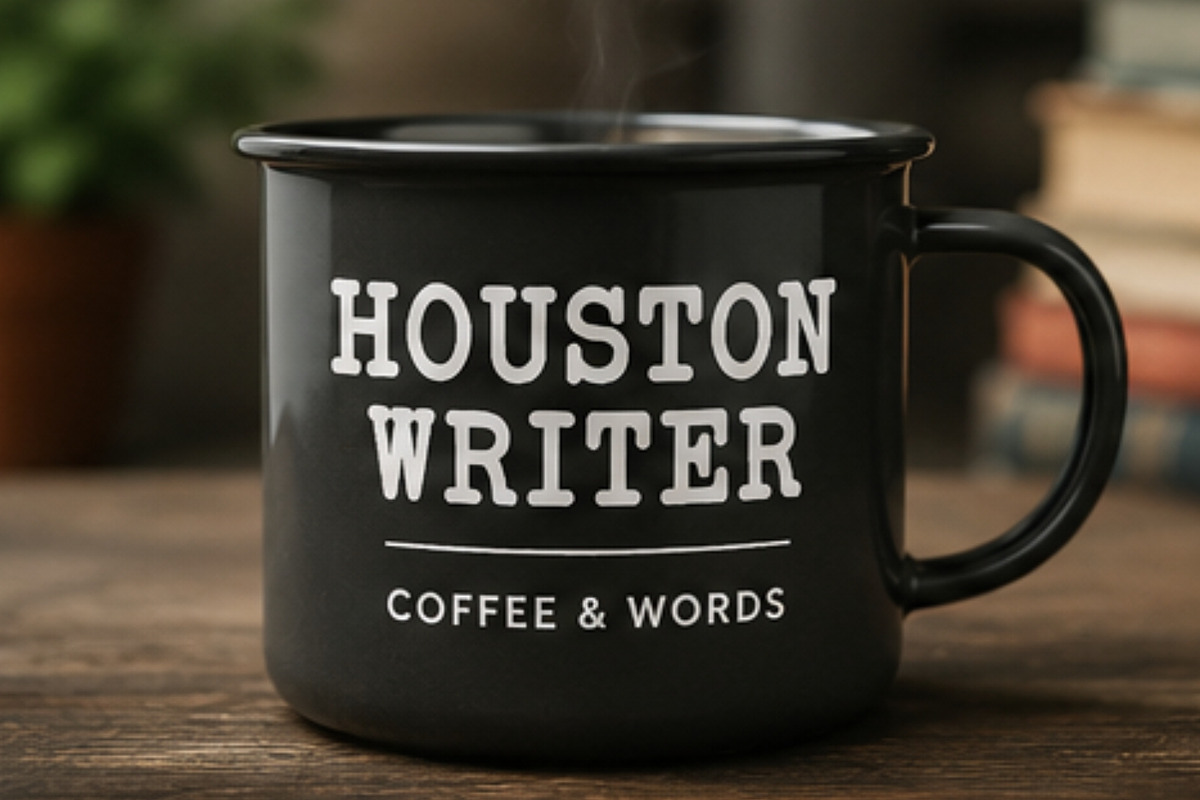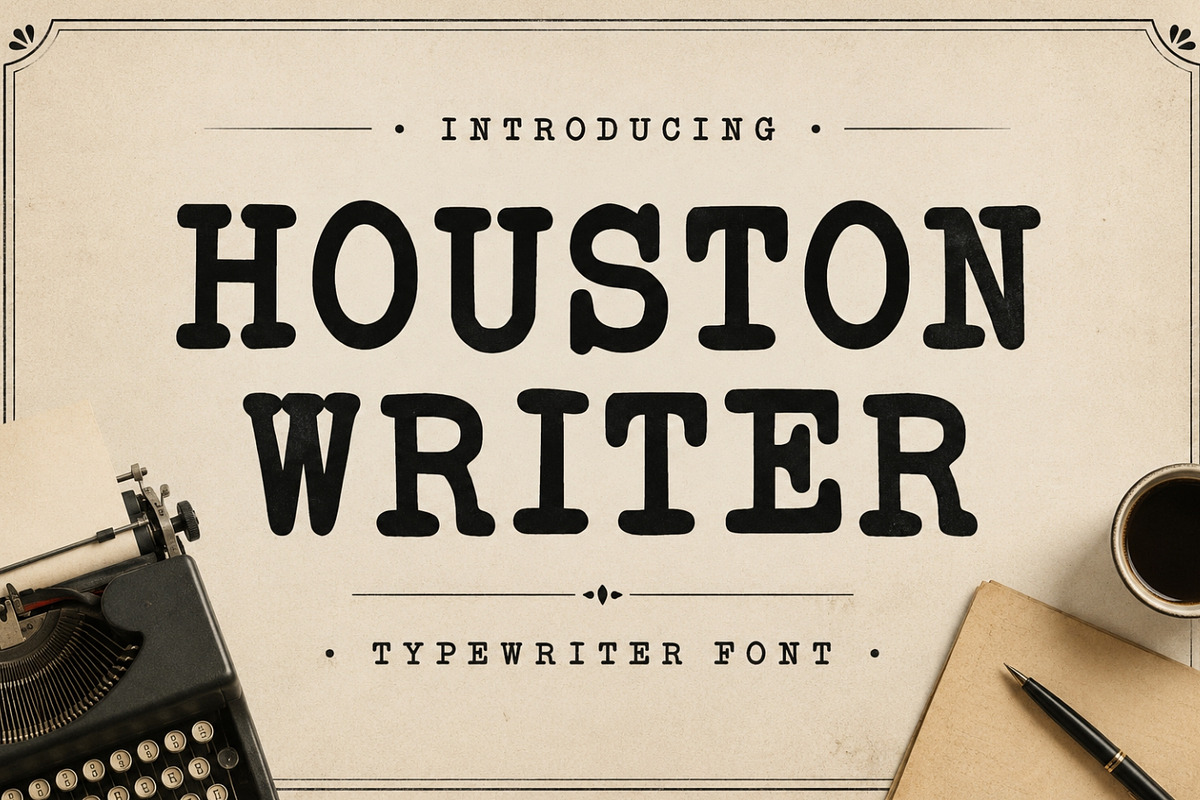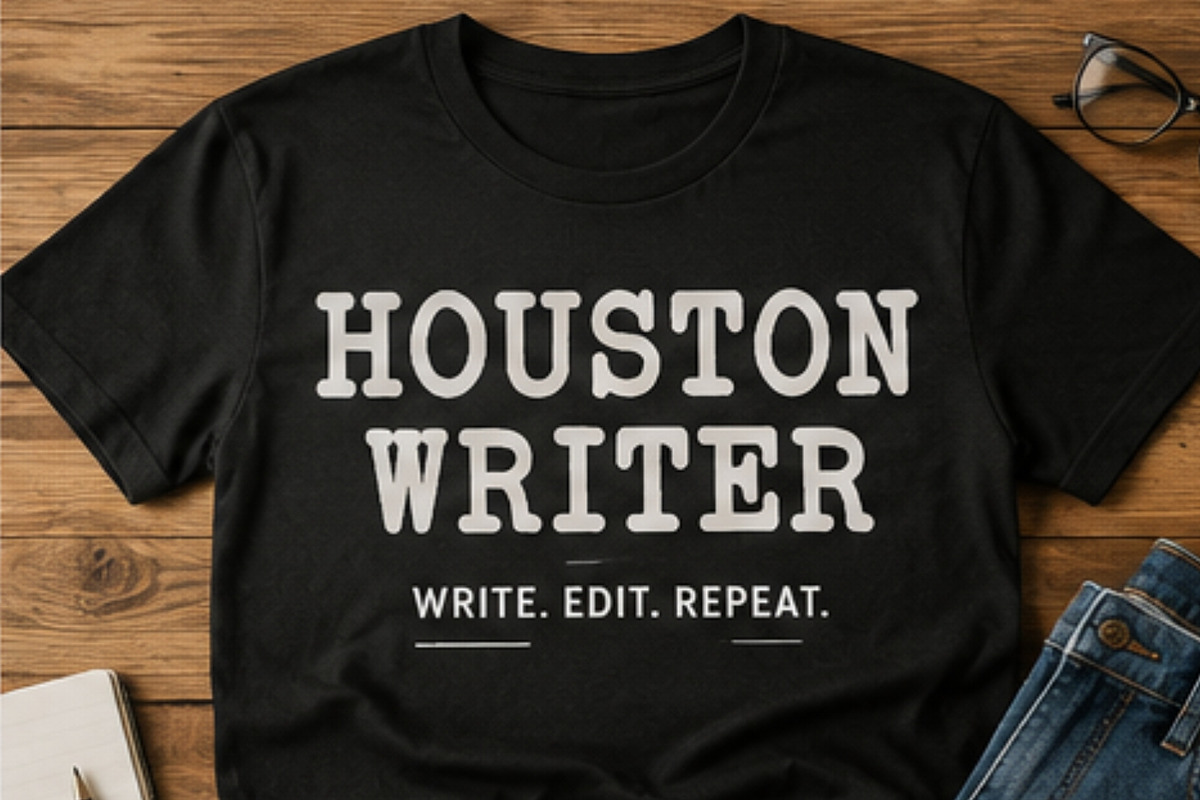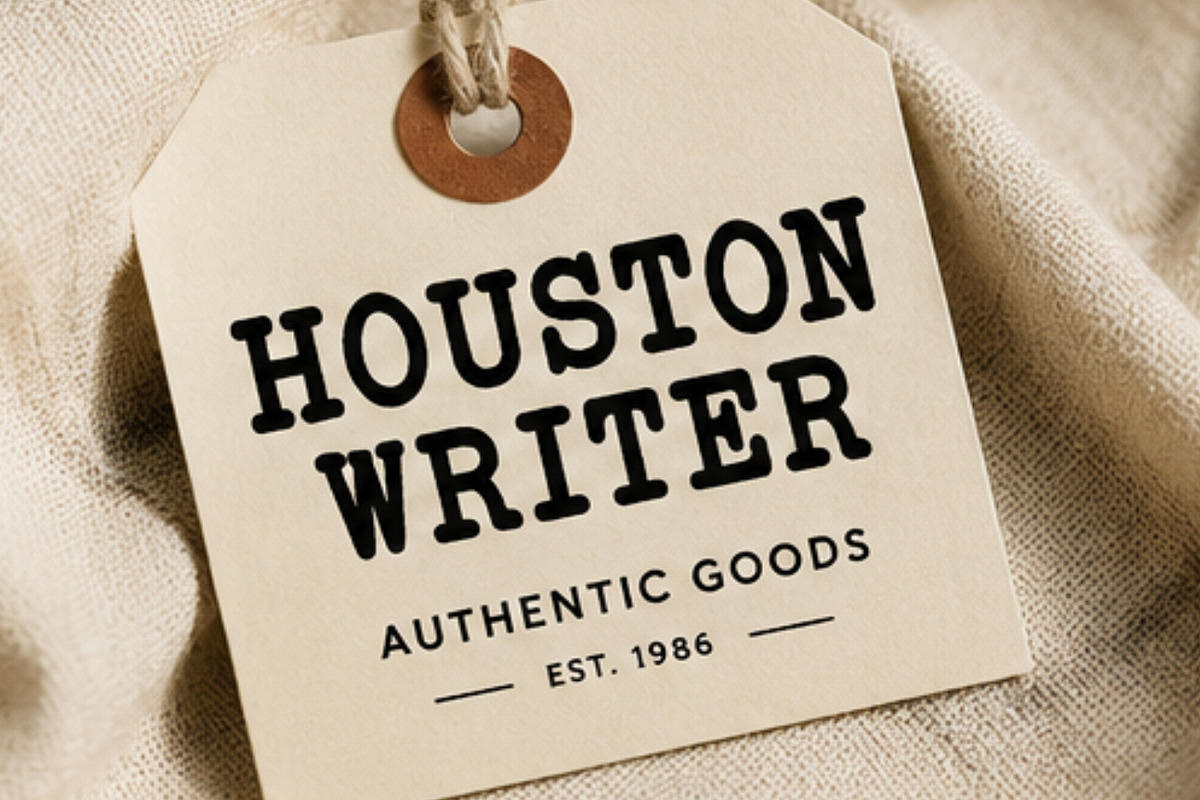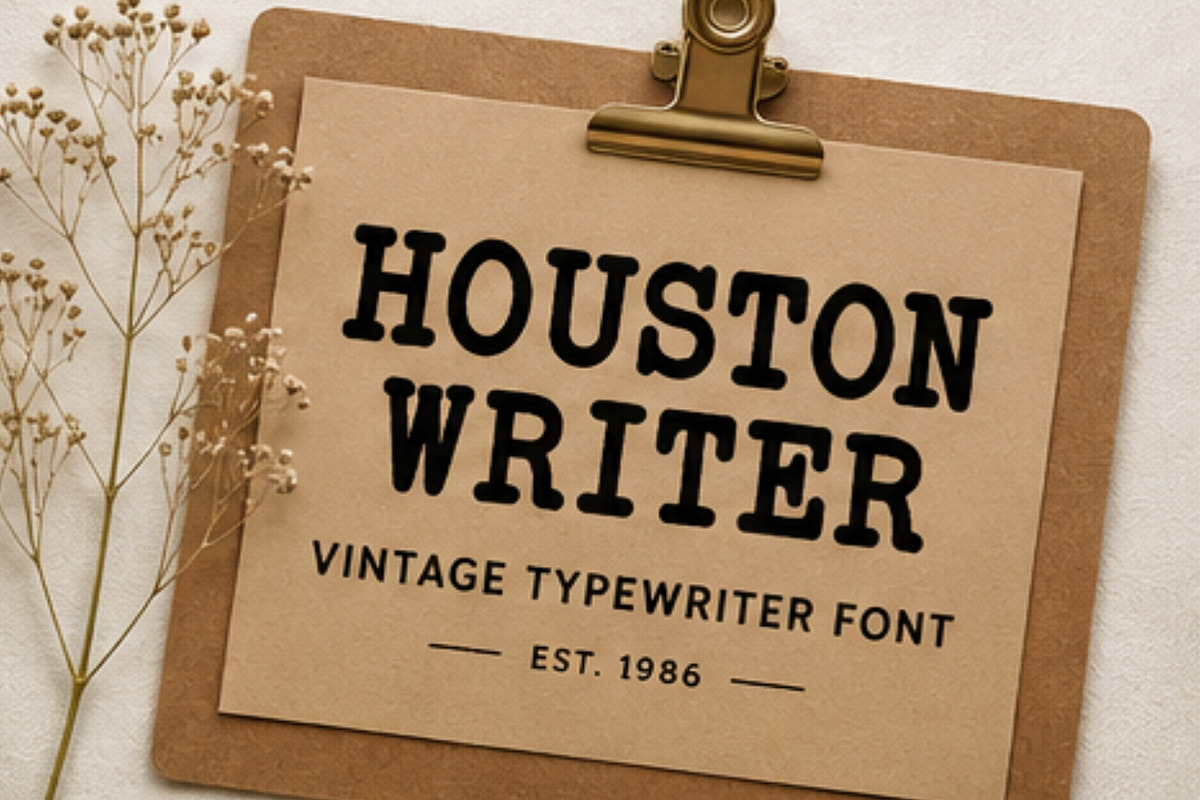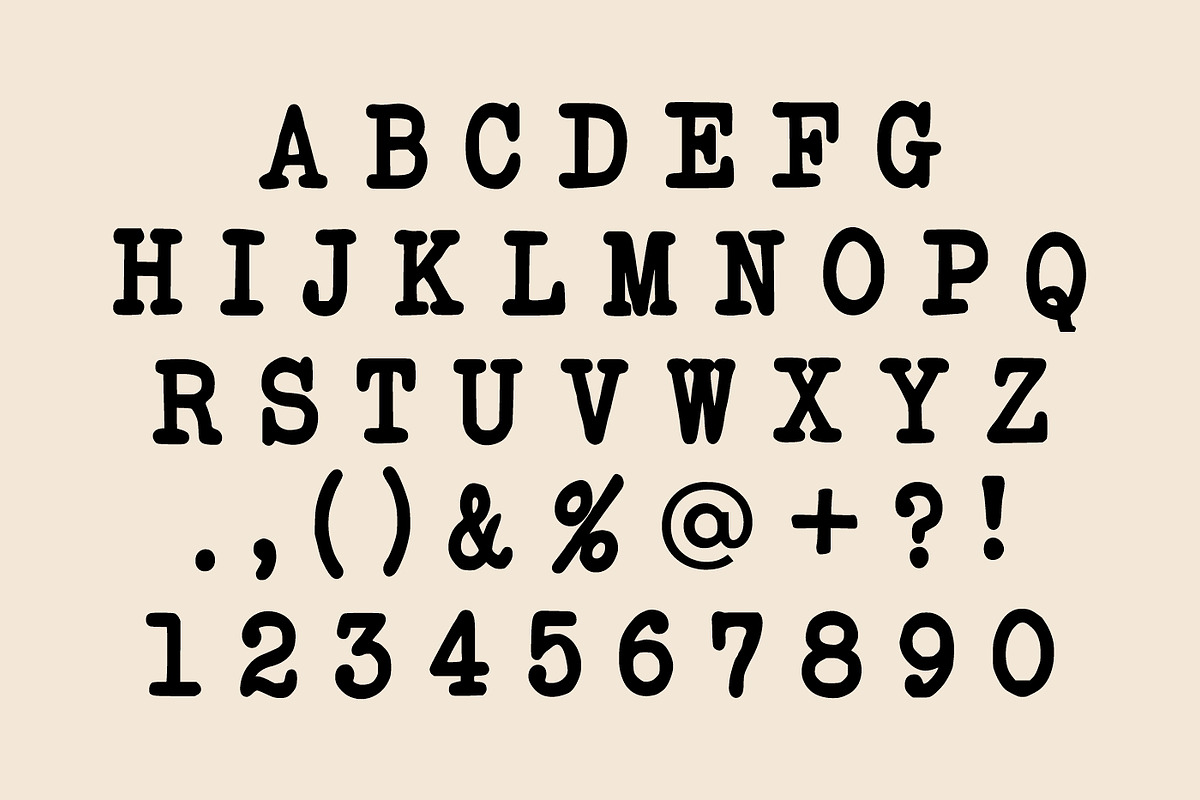
Houston Writer
Houston Writer is a timeless vintage typewriter font inspired by classic writing machines, old manuscripts, and authentic editorial typography. Designed with bold, sturdy letterforms and a nostalgic typewritten character, this font brings the charm of traditional storytelling into modern creative projects. Its distinctive appearance captures the warmth of handwritten drafts, historic documents, newspaper headlines, and literary publications while maintaining excellent readability across both print and digital media.
Whether you’re designing book covers, author branding, journal layouts, vintage posters, packaging, invitations, stationery, logos, quotes, or social media graphics, Houston Writer delivers a sophisticated retro aesthetic that feels both professional and authentic. The font’s strong presence and classic typewriter personality make it perfect for projects that require a touch of nostalgia, creativity, and timeless elegance.
Houston Writer is especially suitable for vintage-themed branding, cottagecore designs, literary merchandise, scrapbook projects, historical presentations, editorial layouts, café branding, artisan packaging, and creative storytelling. Its versatile style effortlessly combines old-world charm with modern usability, making it a valuable addition to any designer’s font collection.